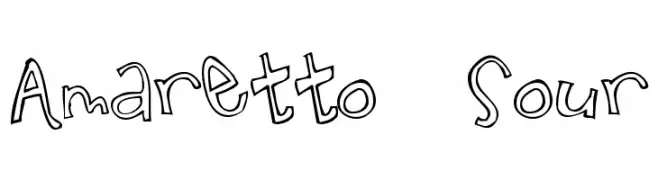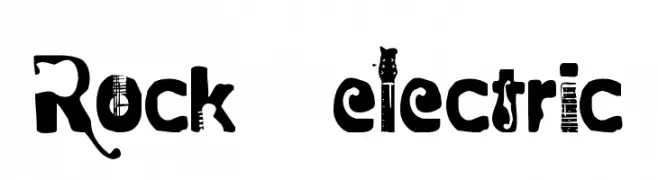
( Fonts by Matthew Austin Petty - www.disturbed.com )
A playful, hand-drawn font with whimsical and irregular characters.
( Fonts by Klaus Johansen - www.listemageren.dK )
A decorative set of panda-themed illustrations in place of traditional characters.
( Fonts by or from www.graffitifonts.net )
A bold, playful font with a 3D effect and cartoon-like style.
( Fonts by Astigmatic One Eye Typographic Institute - Brian J. Bonislawsky - astigmatic.com )
A bold, angular font inspired by ancient runic alphabets with an inline design.
( Fonts by Matthew Austin Petty - www.disturbed.com )
A bold, rock-inspired font with musical elements and a grunge aesthetic.
( Fonts by Philippe BLONDEL www.philing.net )
A 3D visual representation of Braille characters using raised spherical dots.